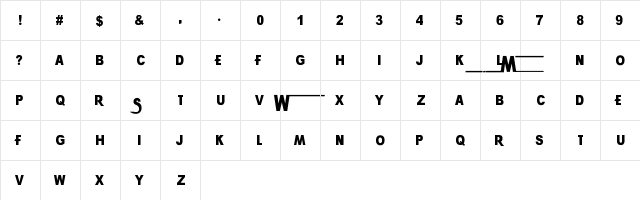
WRESTLEMANIA Regular Font Preview
WRESTLEMANIA Regular
WRESTLEMANIA Regular Font Details
Design Context for WRESTLEMANIA Typeface
WRESTLEMANIA takes a measured approach to typography — its balanced proportions and neutral character make it a reliable workhorse for both digital and print work.